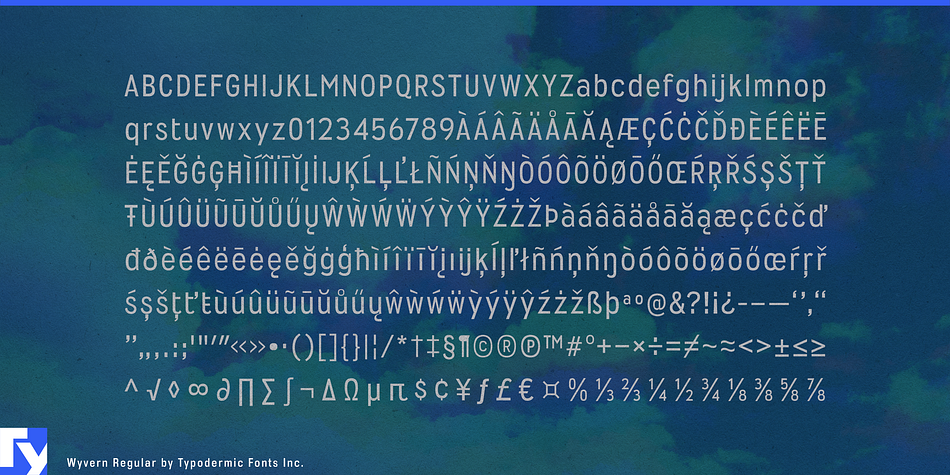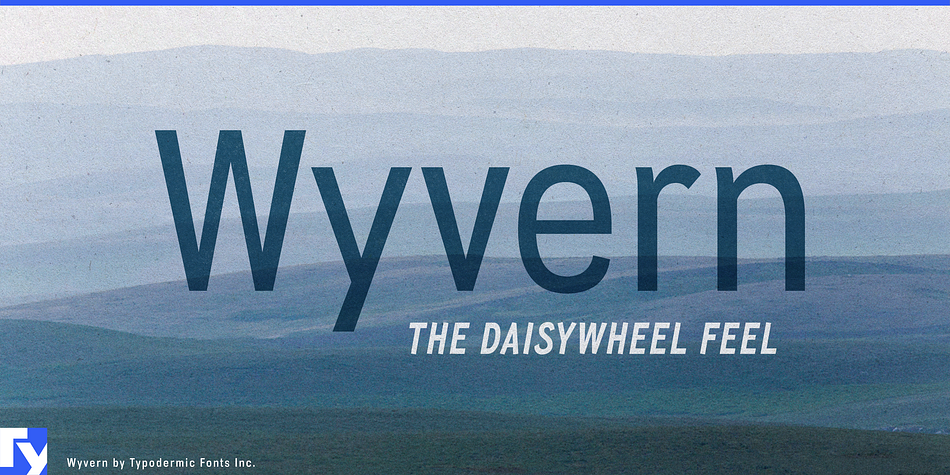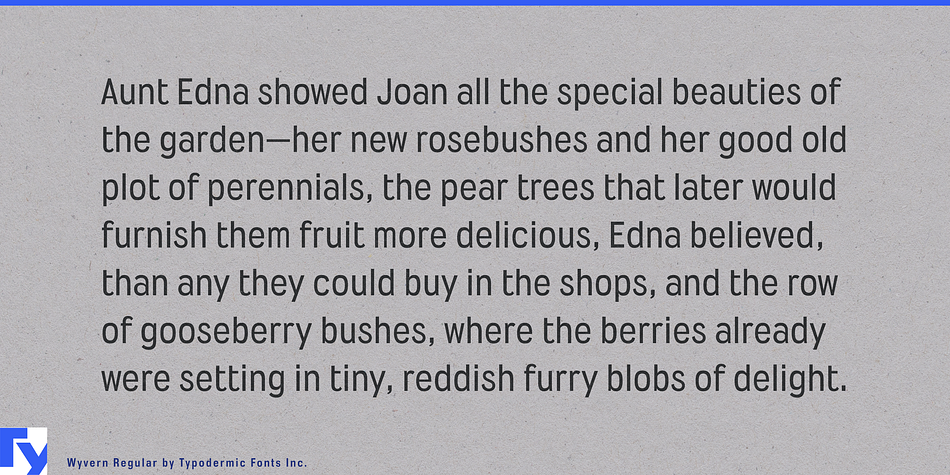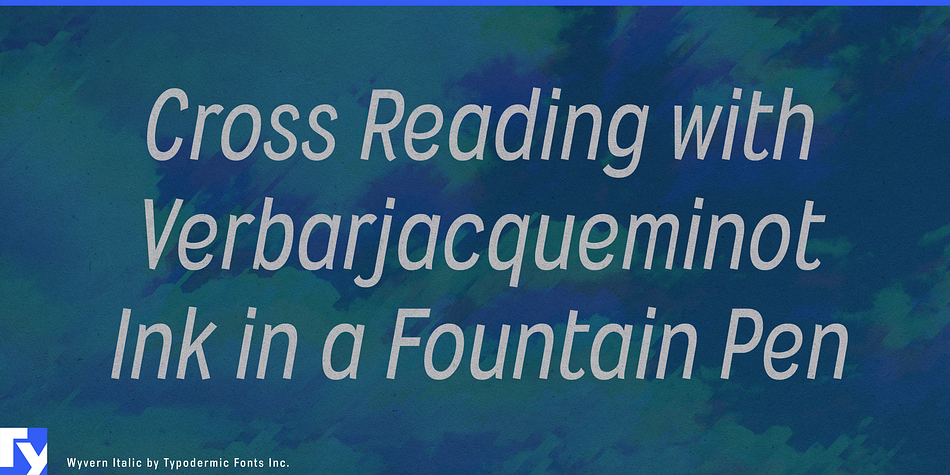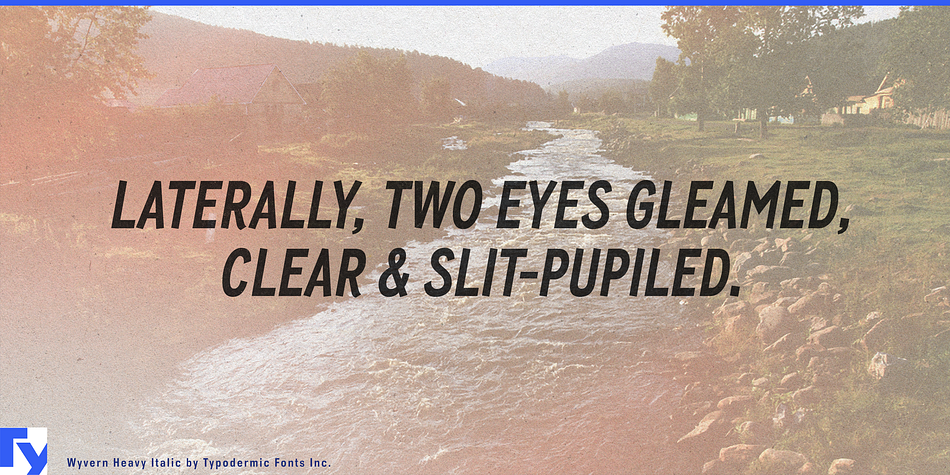
Wyvern is a grunge, sans serif and display sans font family. This typeface has seventeen styles and was published by Typodermic Fonts Inc.
Based on the classic, clean lines of a 1970’s daisywheel printer, Wyvern is a dignified sans serif font with elevated x-height and short descenders making it ideal for tight spaces. Wyvern is proportionally spaced and compact with clean ends that impart an open and youthful look, well-suited to vertical stacking. One of Wyvern’s strengths are the italics which are more than just oblique versions of the regular font. Created with angled stems and adjusted stem widths to maintain that lively and natural look without resorting to cursive forms.